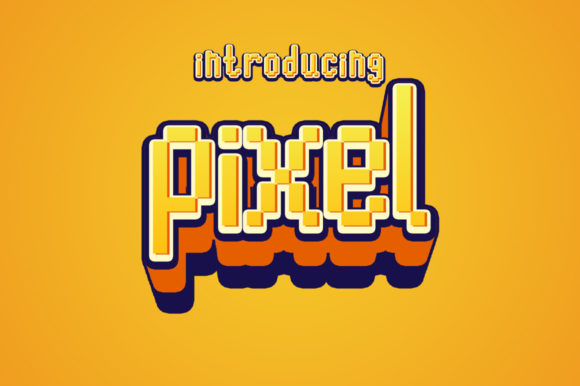
In a world brimming with monotonous and conventional fonts, Pixel Font stands as a beacon of innovation, beckoning you to unleash your creativity and embark on a typographic adventure. Pixel Font, a captivating display font, is not just a collection of characters; it's a portal to a realm of limitless expression, where your imagination takes center stage.
With its sharp edges and robotic charm, Pixel Font exudes a unique personality that demands attention. Its bold strokes and geometric precision evoke a sense of modernity, while its playful and quirky nature adds a touch of whimsy to any project.
This font is a testament to the boundless power of creativity. It's a font that speaks to the child within us, the one who revels in the joy of imagination and the limitless possibilities of creation.
Step into the realm of limitless creativity with Pixel Font. Let your imagination soar, and watch as your words transform into captivating works of art.